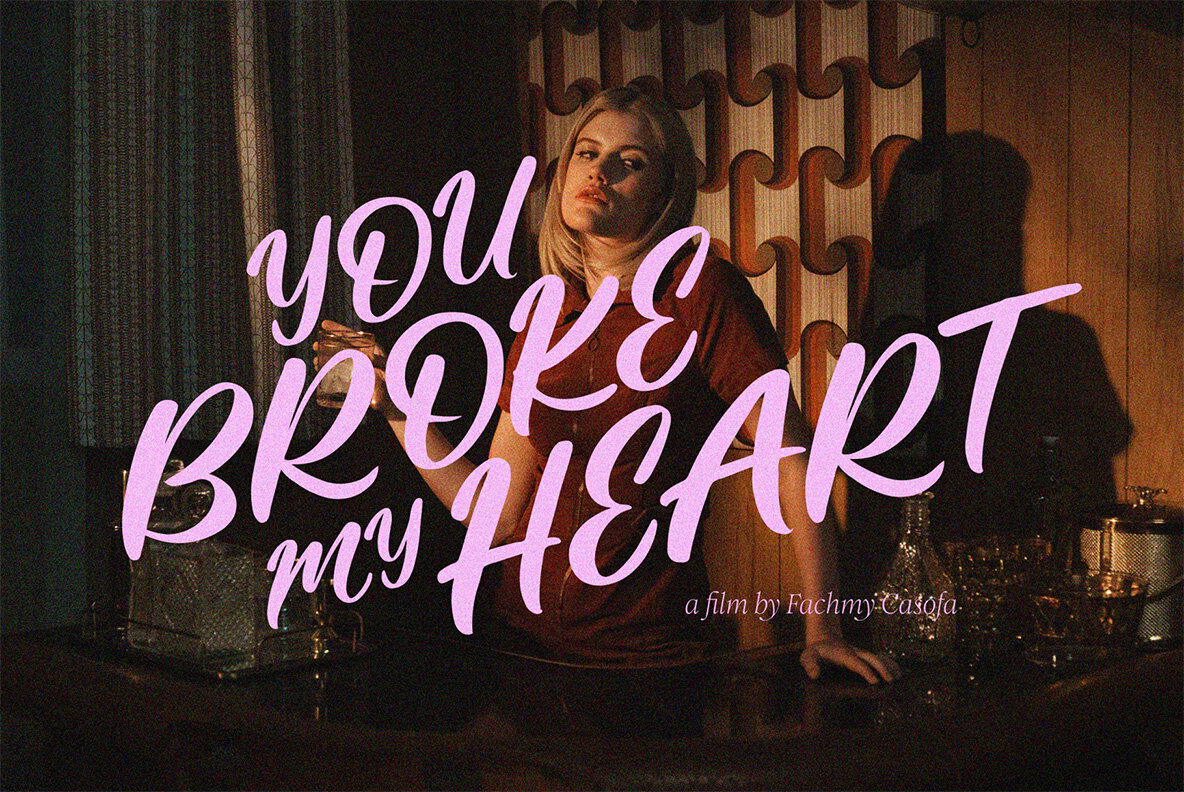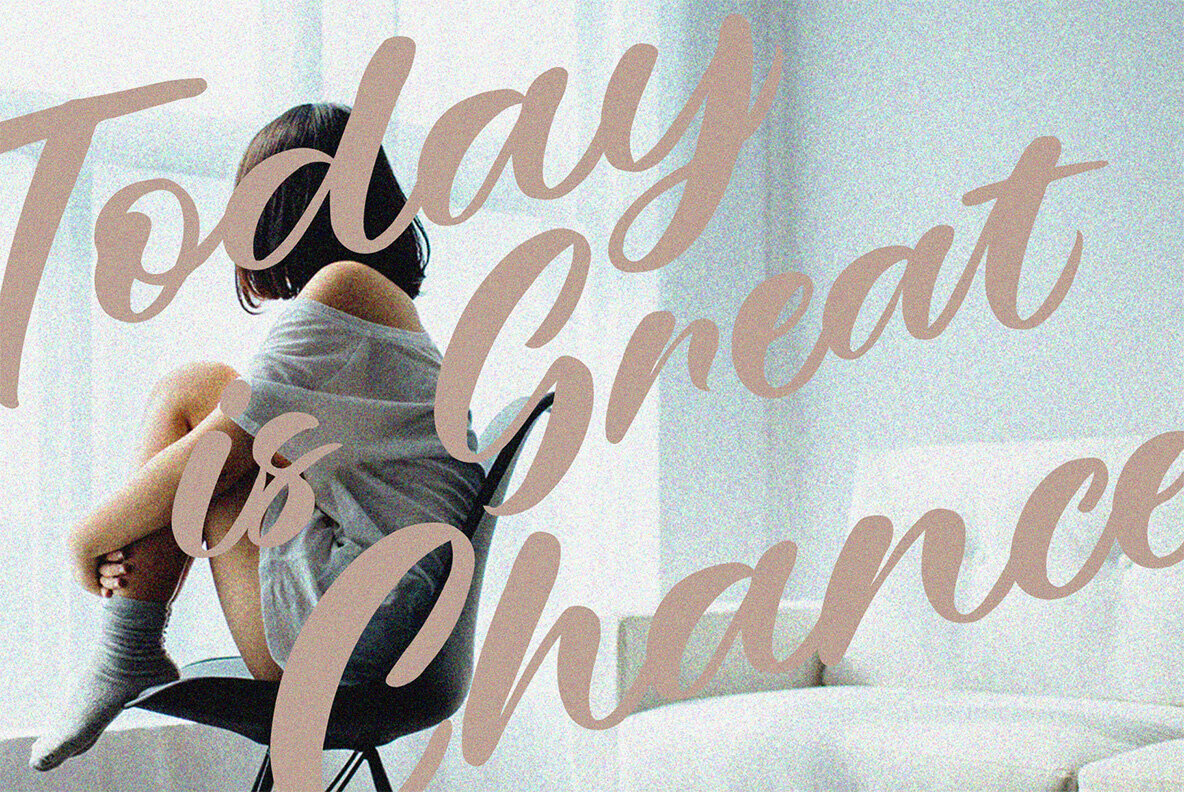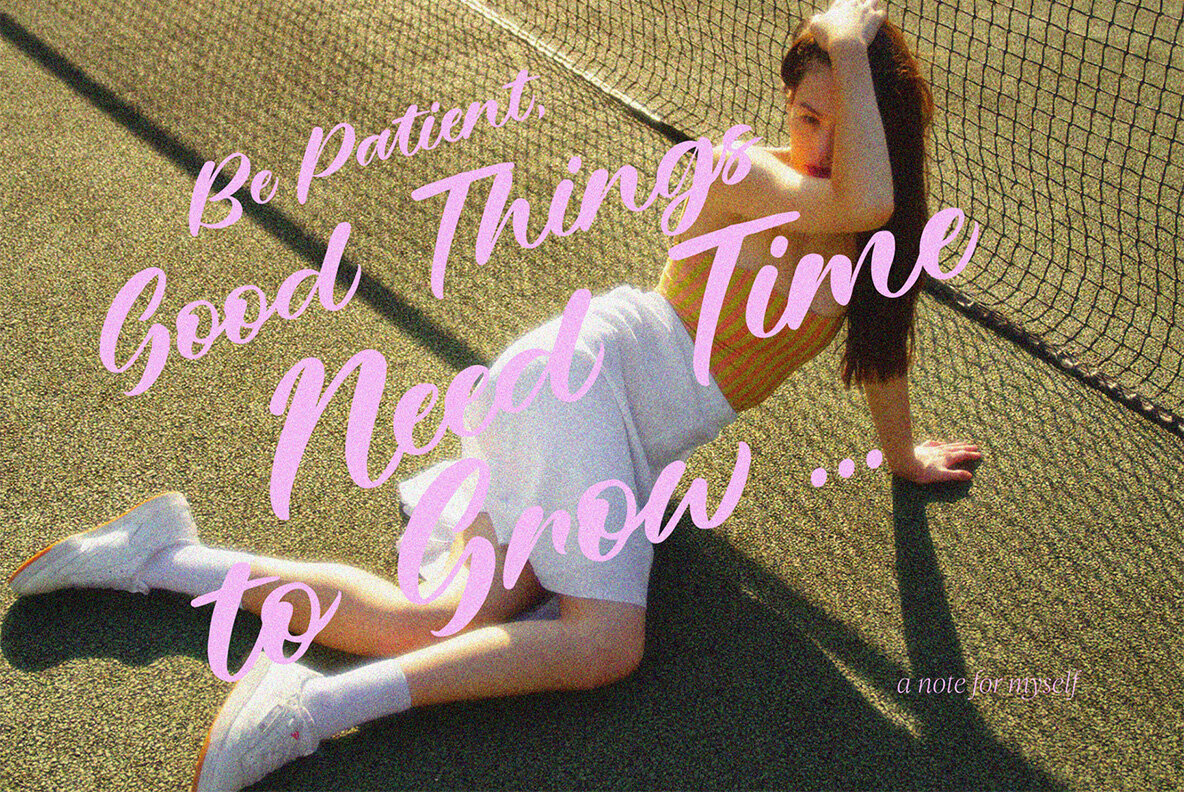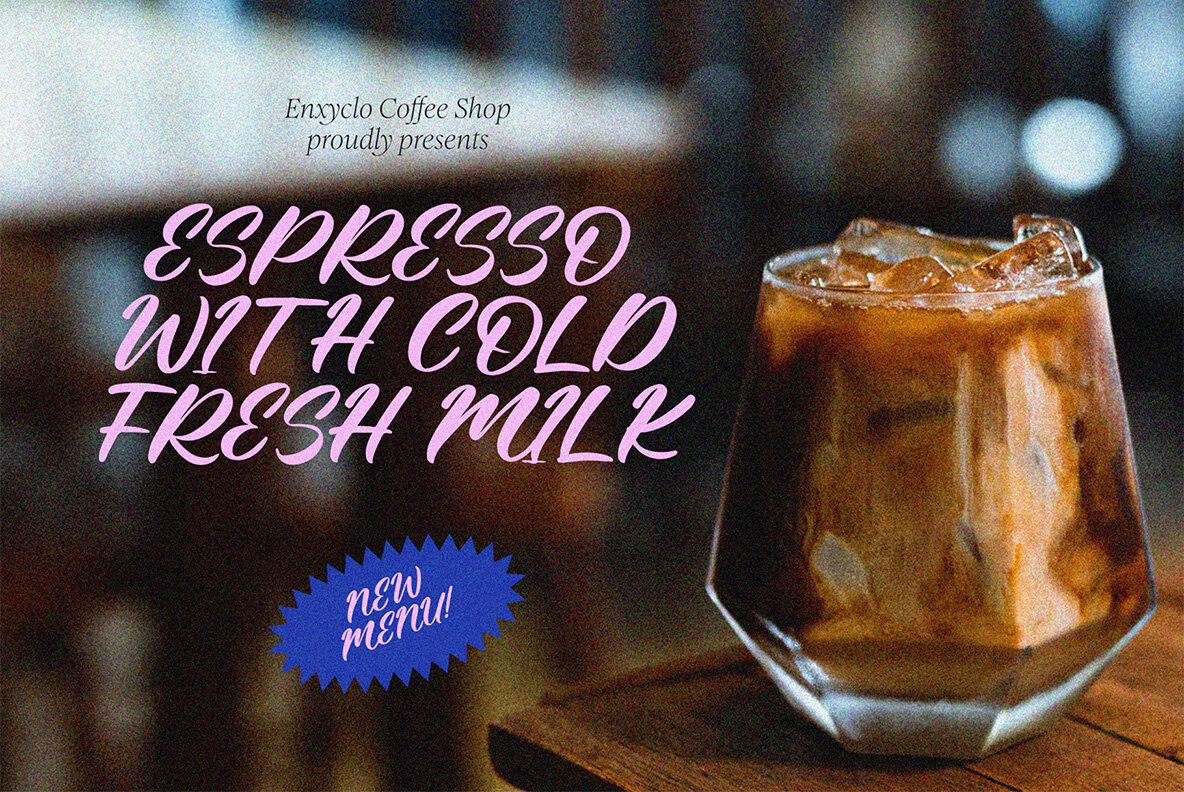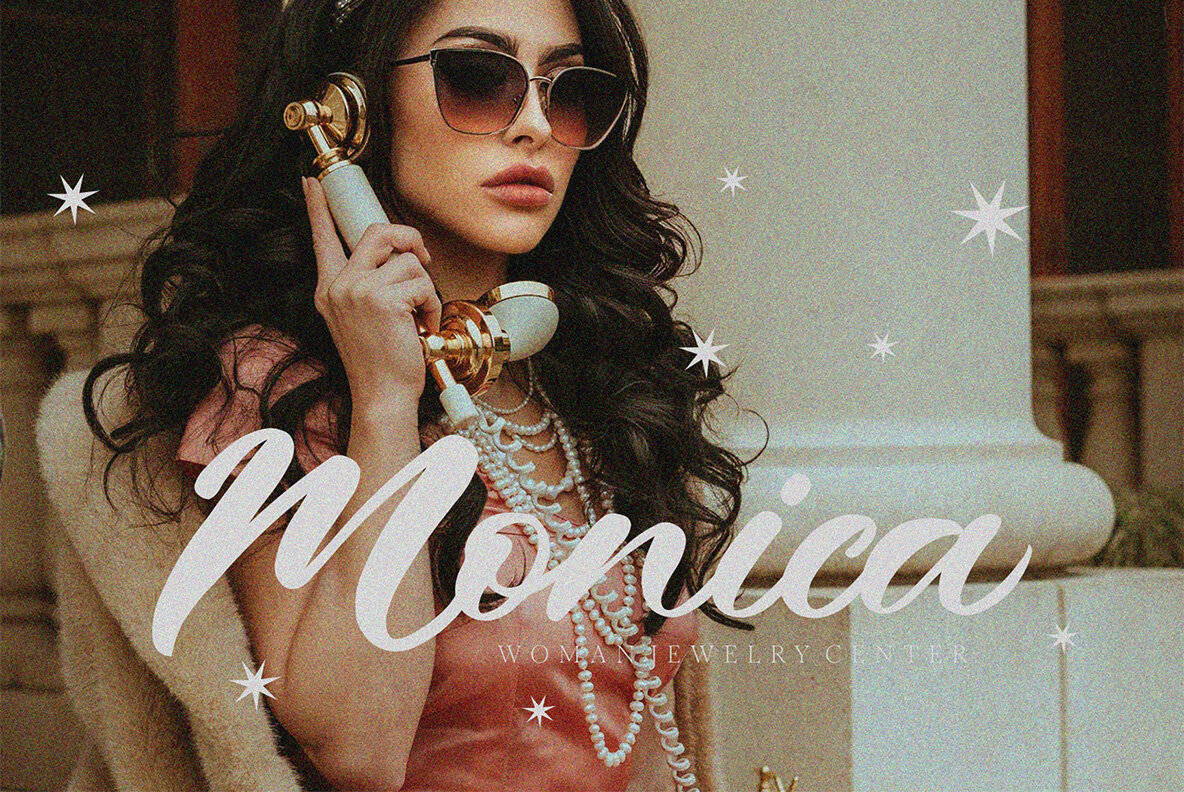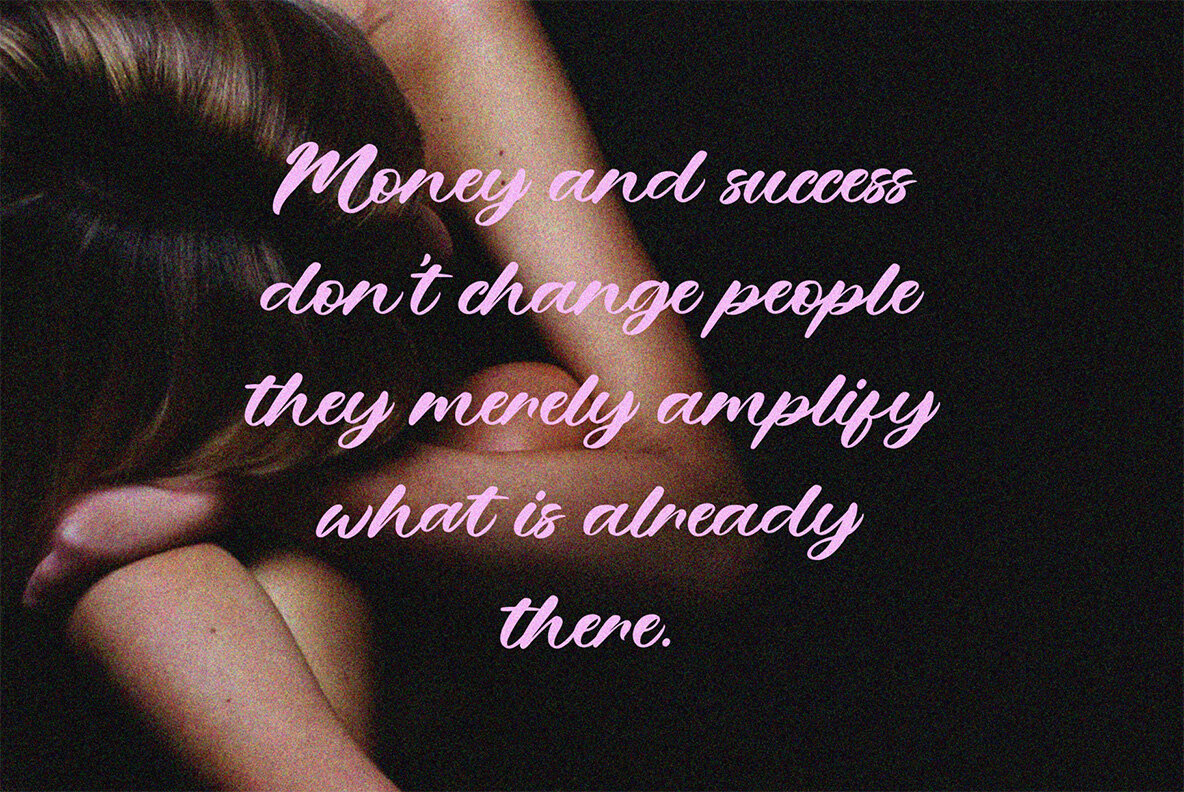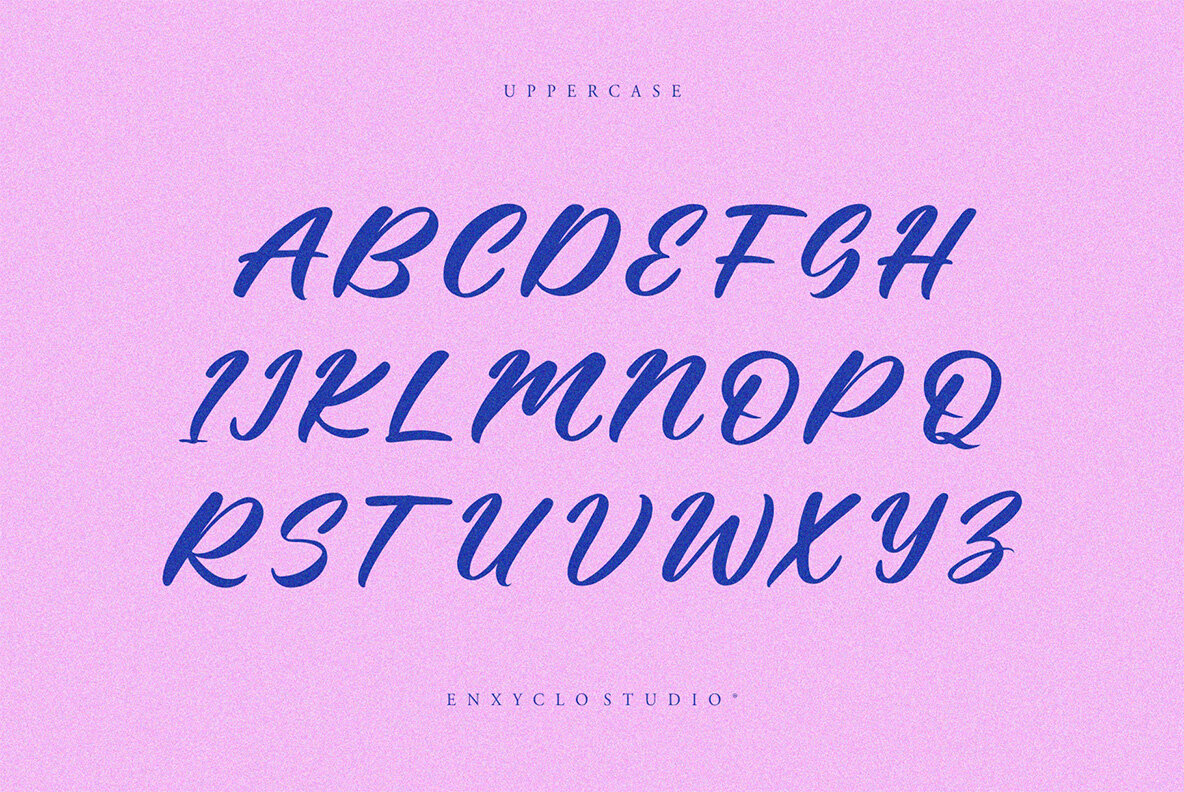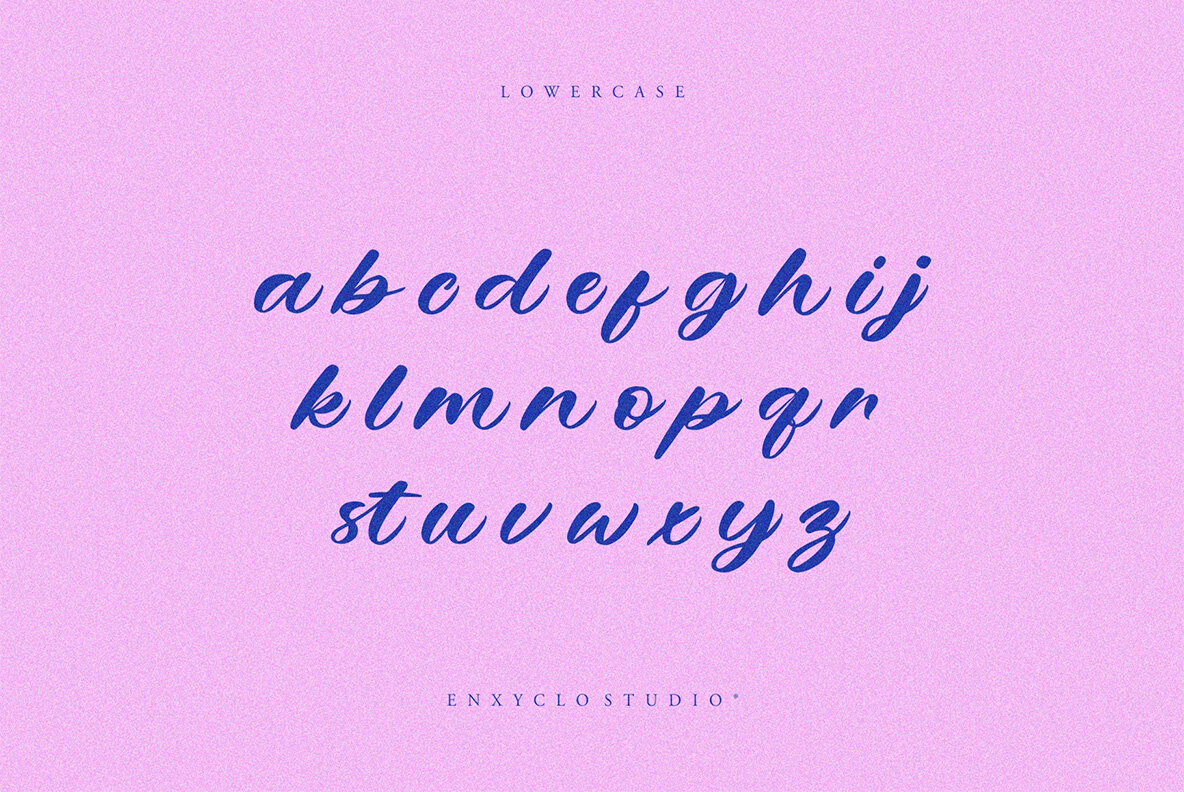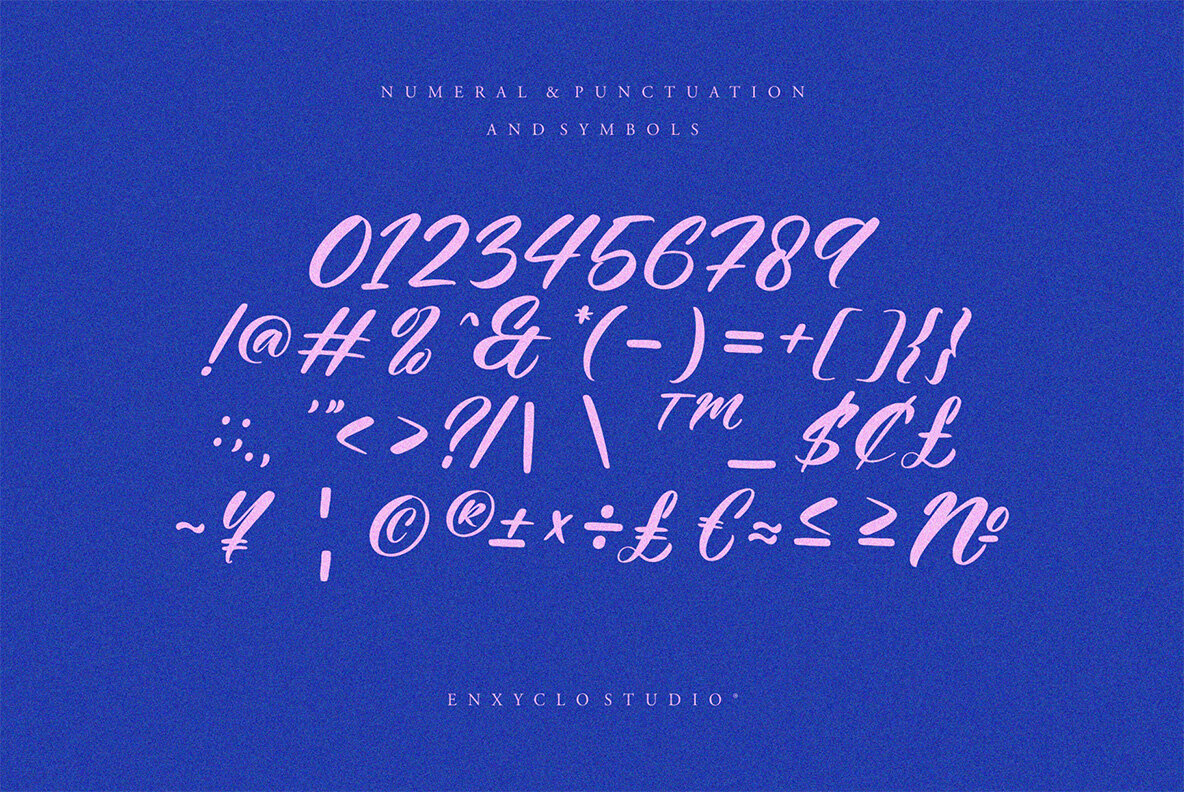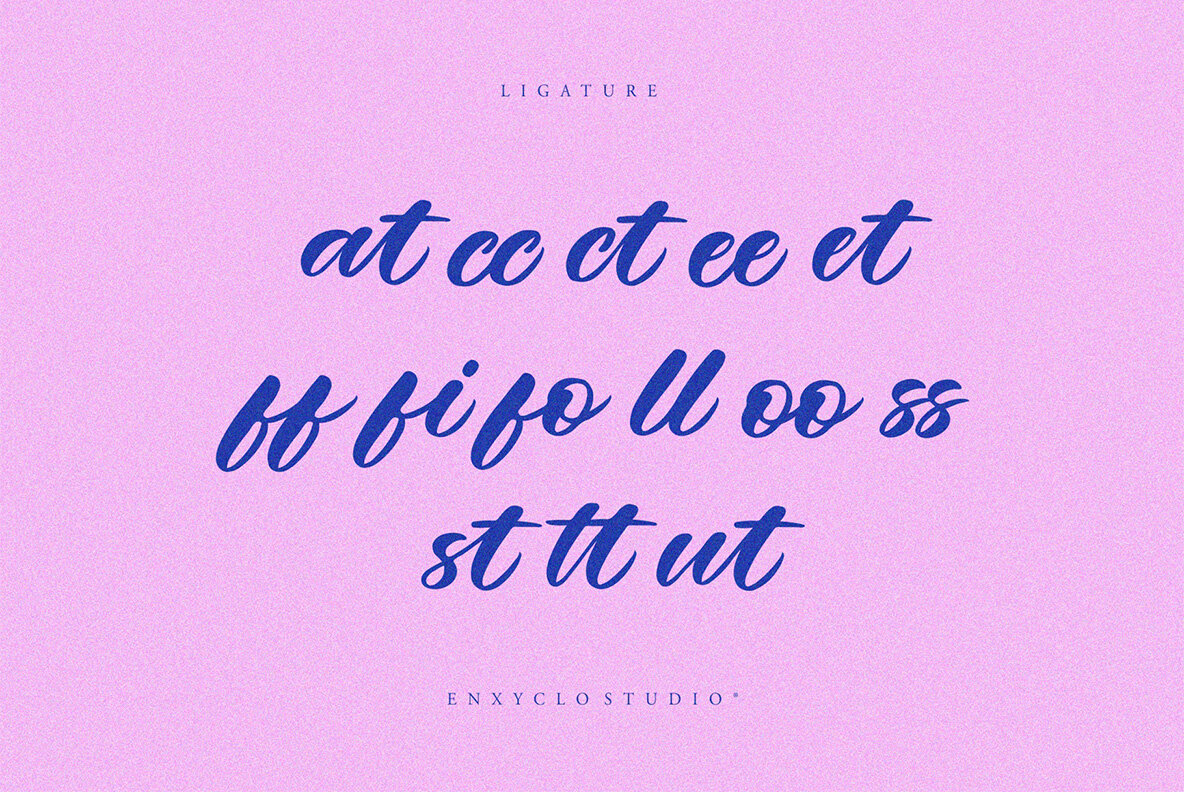
NCL Mahqusep Copisela Font
NCL Mahqusep Copisela Regular
NCL Mahqusep Copisela is a pop but elegant script font. Masterfully designed to become a true favorite, this font has the potential to bring each of your creative ideas to the highest level! It was purposely crafted to be used in large point sizes, although it doesn’t lose its magic in small point sizes. It is perfect for wedding, headline, billboard, magazines, website, titles, poster, branding, and logos. No matter the topic, this font will be an incredible asset to your fonts’ library, as it has the potential to elevate any creation. With this beautiful font, absolutely you can make your project stand out from the rest. Features: